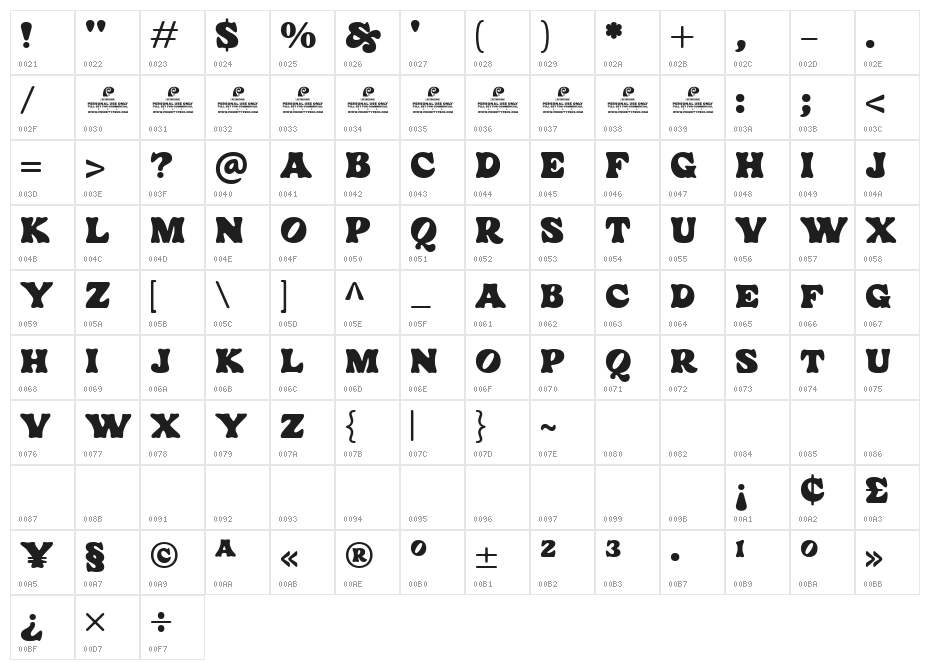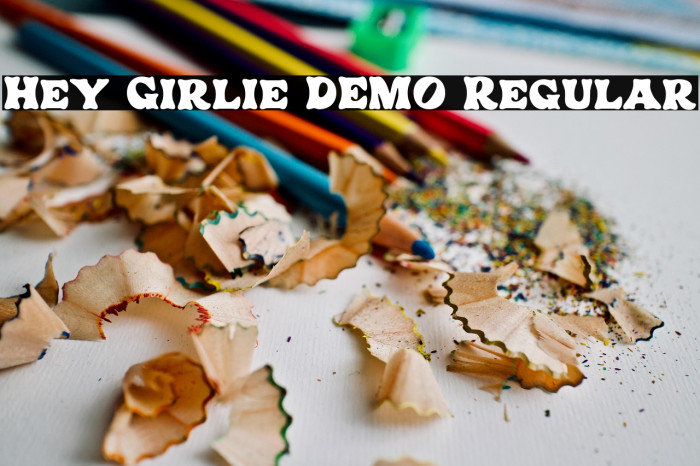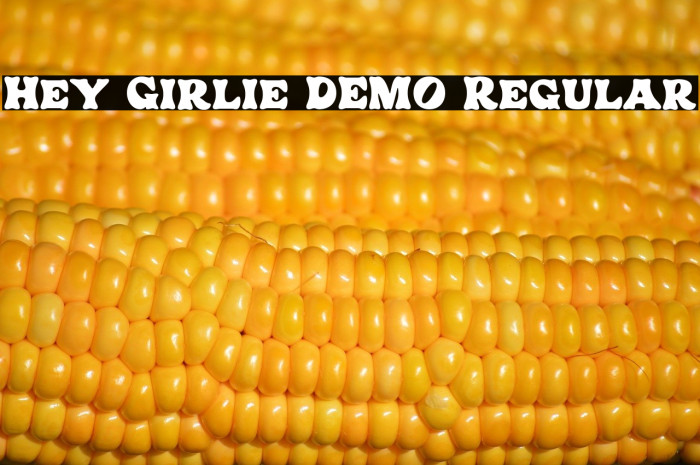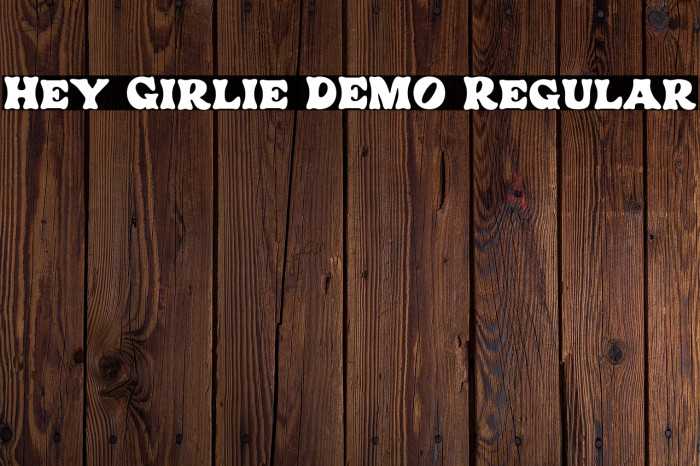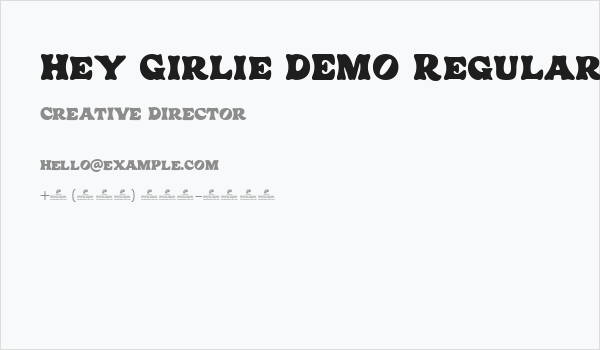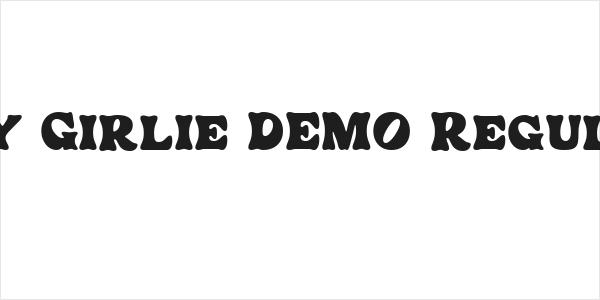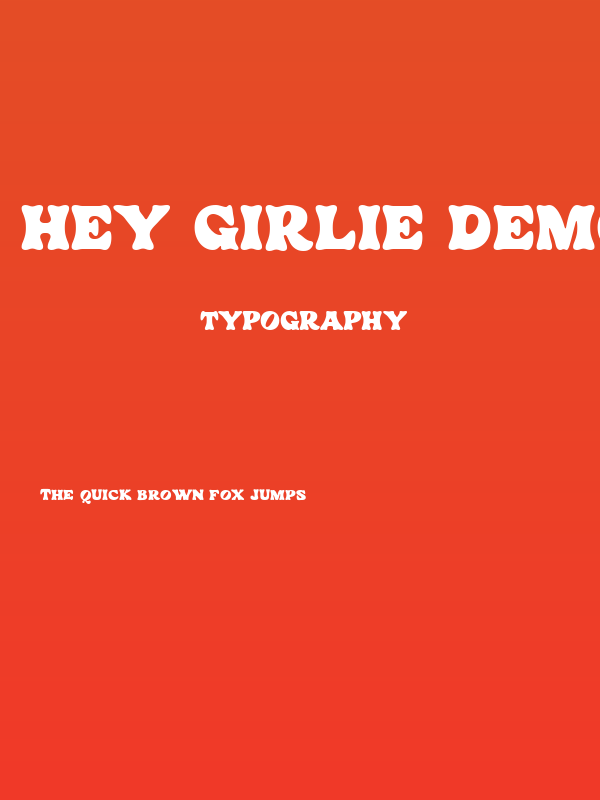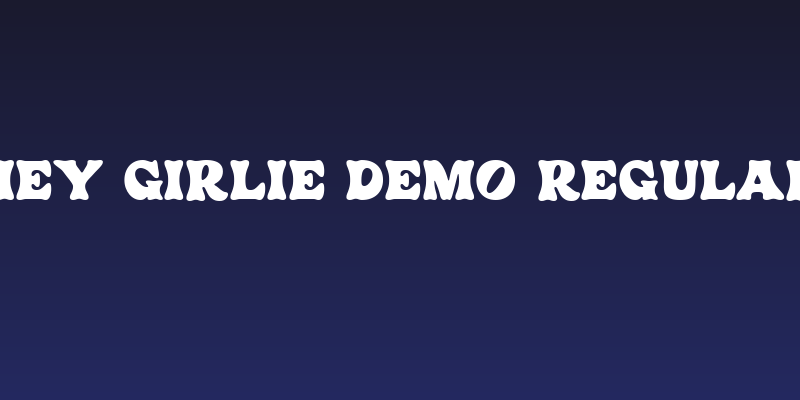
Hey Girlie DEMO Regular Font
Hey Girlie DEMO Regular Description
This font features a bold and playful design with thick, rounded strokes that give it a whimsical and friendly appearance. The characters are uniformly bold, with a slight inward curve at the ends, adding a unique flair. The uppercase and lowercase letters maintain a consistent style, while the numbers and special characters are crafted to match the overall aesthetic. This font's distinct style makes it stand out, ideal for projects that require a touch of fun and creativity.